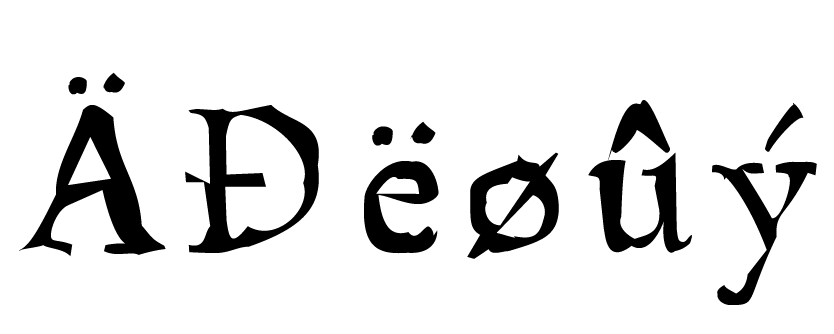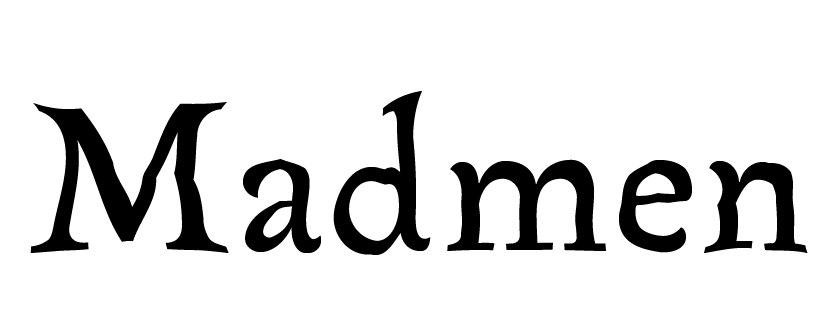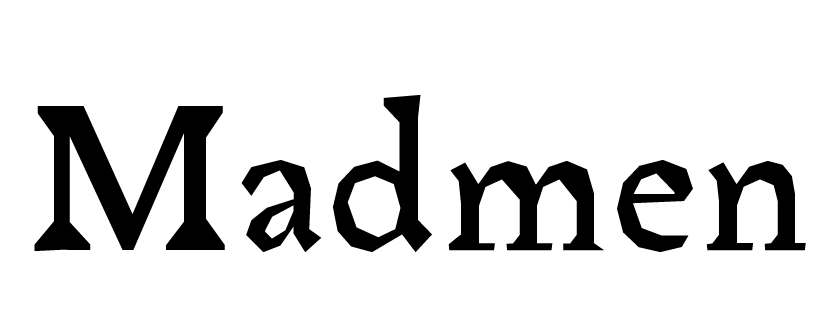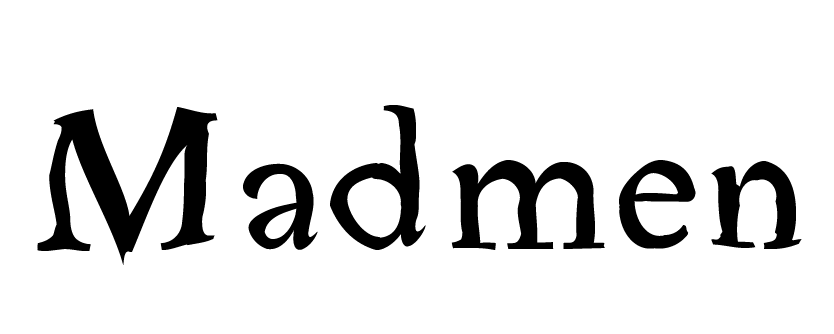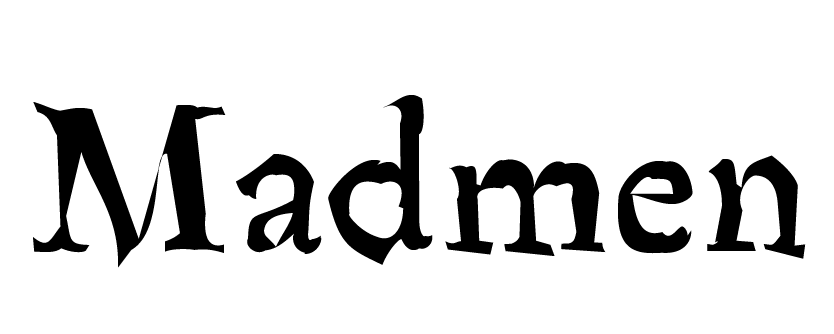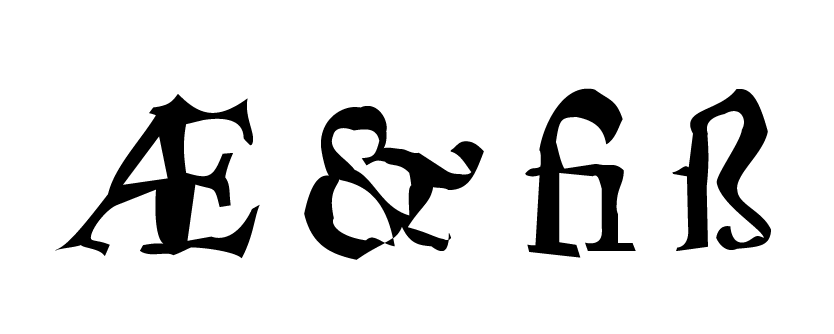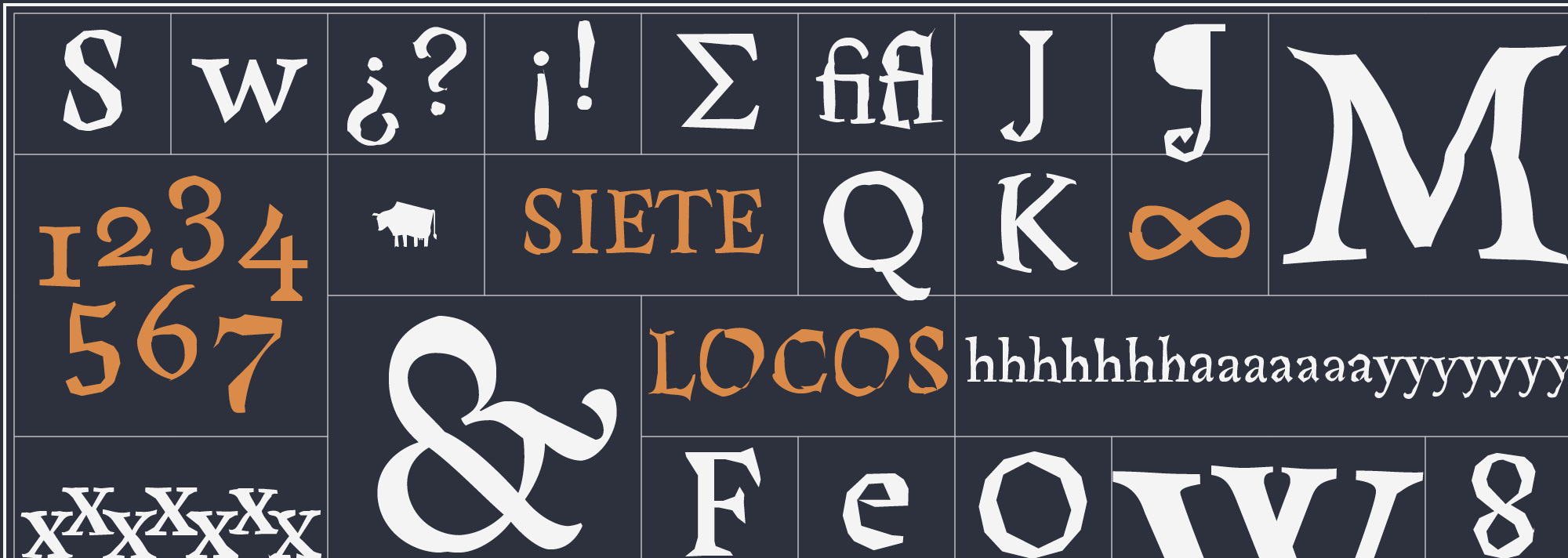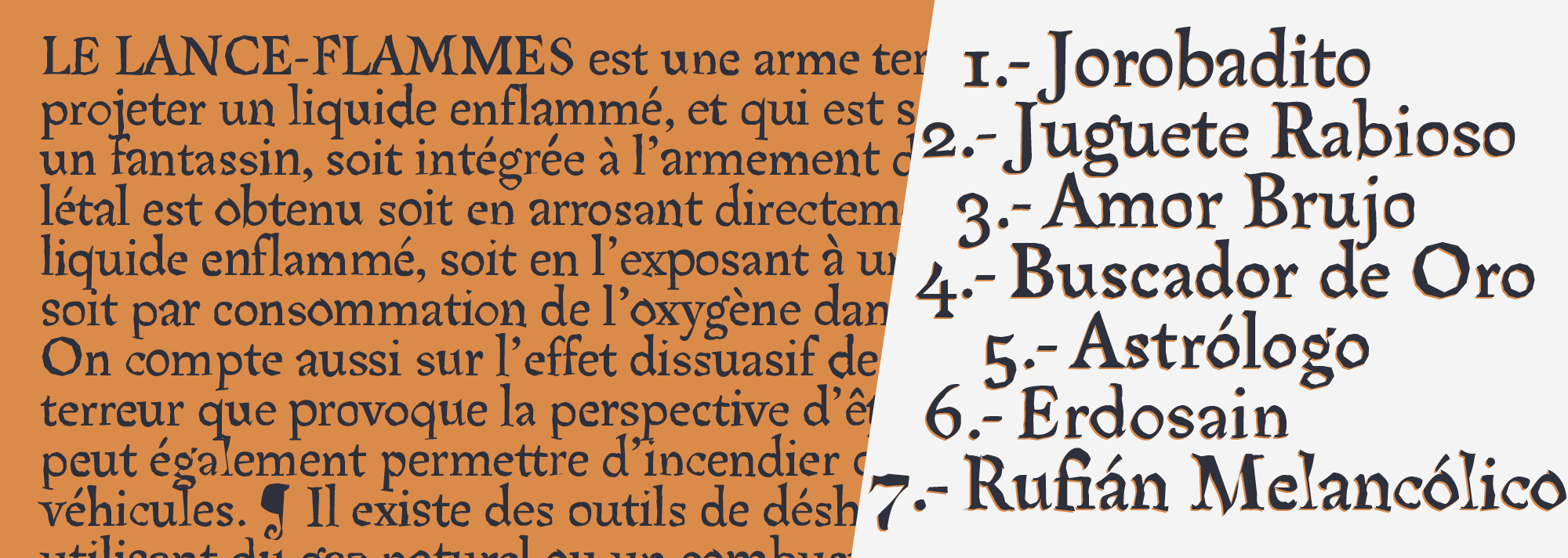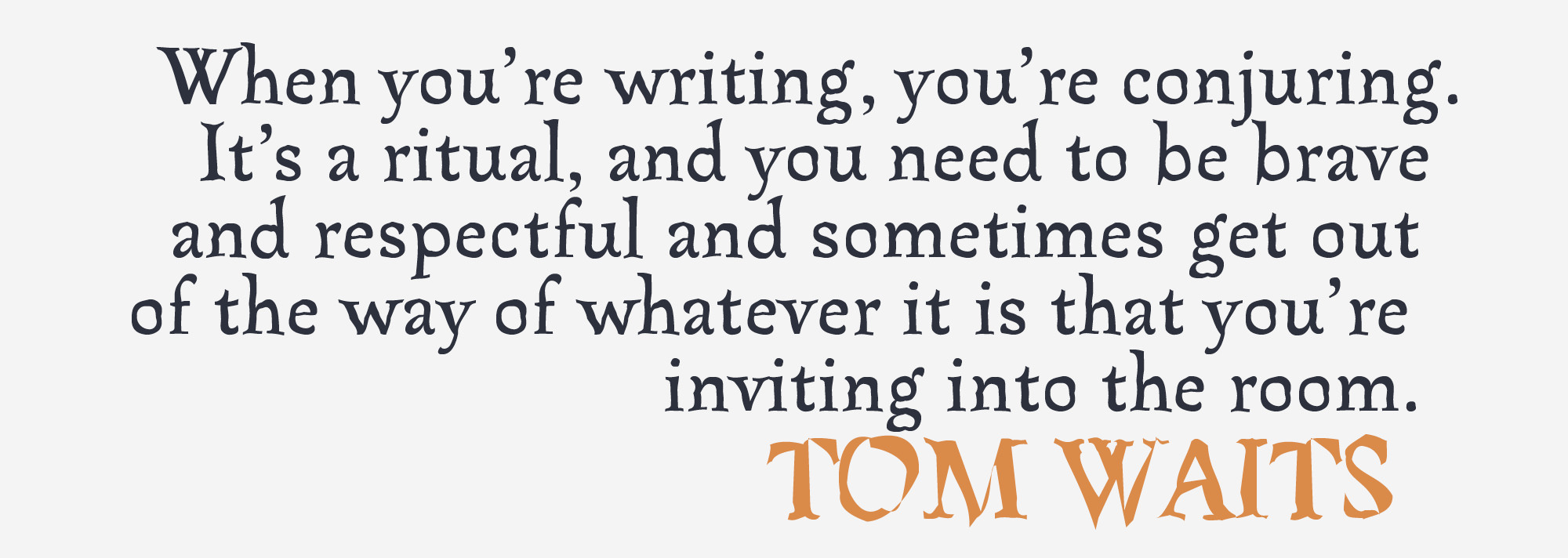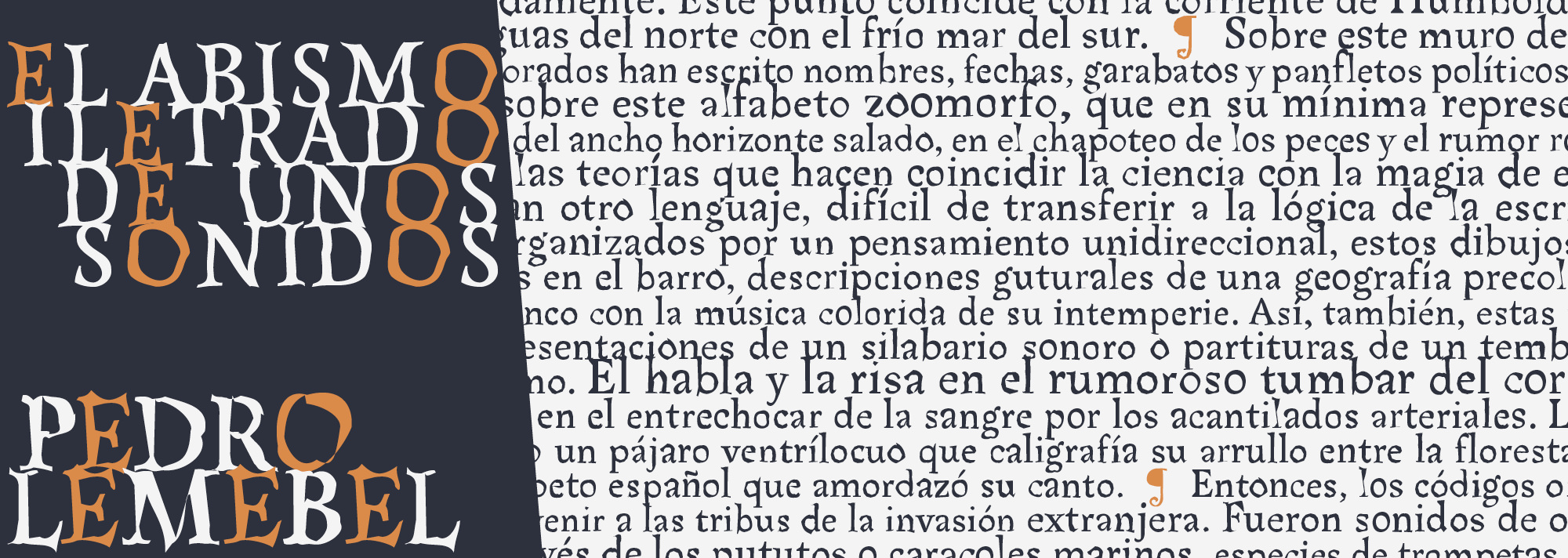
Arlt 7 Locos, the deconstructed and refined series
Arlt 7 Locos, a series of seven expressive fonts, was the result of a specific exploration: take those carefully designed Arlt's letterforms and thoroughly destroy them. Inspired by the Lunfardo (the argot of Buenos Aires) and the characters in Roberto Arlt's main novel Seven Madmen, these fonts can be misteriously attractive when printed in small bodies on rough quality papers. Check also Arlt Lanzallamas, a unique font that cleverly combines the seven Arlt 7 Locos fonts in a dynamic way.
Arlt 7 Locos
Designed by Alejandro Lo Celso.
Post-produced by José Luis Acosta.
Basic Latin
standard ligatures
basic monetaries
oldstyle figures
basic operators & math
basic editorial glyphs
seven singular fonts